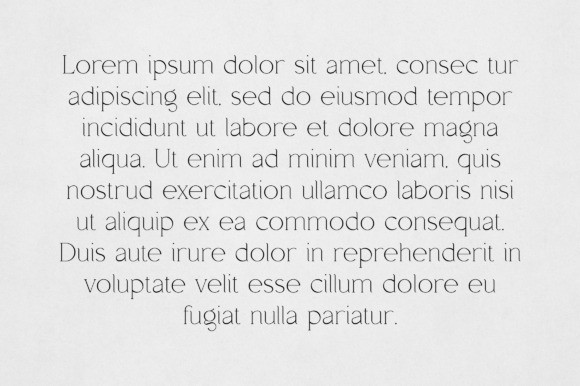
Sienna Font
Sienna Font is an elegant and versatile serif font that will make your typography truly unique! It will enchant every logo, branding, headline, or plain text!